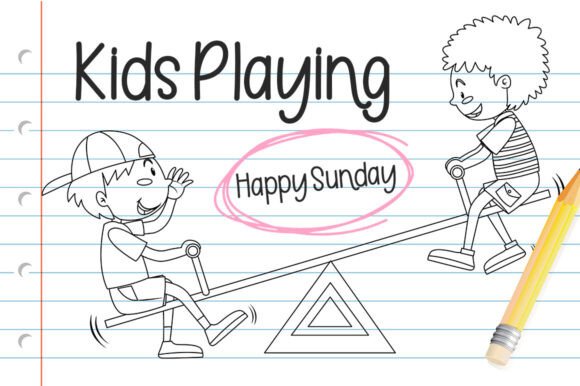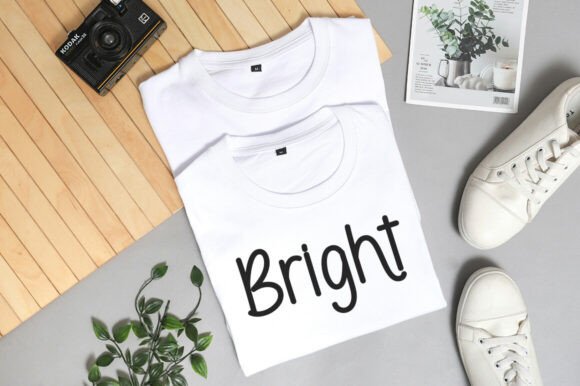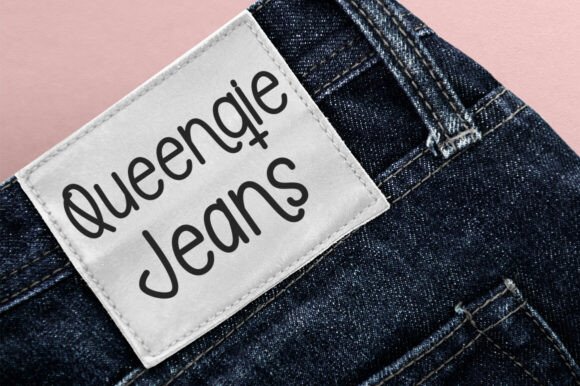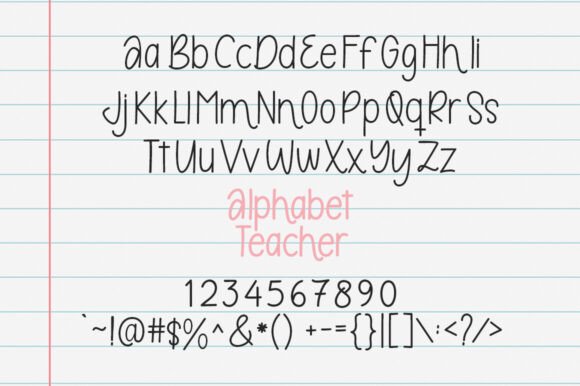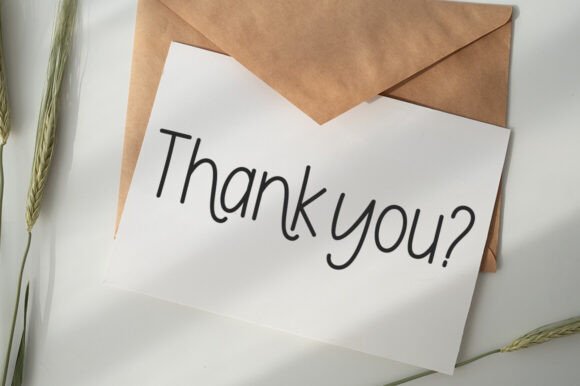
Discover the Charm of Alphabet Teacher Font
What Makes Alphabet Teacher Special?
Alphabet Teacher is an elegantly modern and casually playful font that infuses charm into your creative process. Its regular design showcases a captivating swash that enhances its allure, making it perfectly suited for diverse applications.
- ✨ Elegant and Playful: Alphabet Teacher strikes the perfect balance between modern elegance and casual playfulness, making it versatile for various projects.
- ✅ Swash Details: The font’s captivating swash adds a touch of sophistication and uniqueness to any design.
- 💫 Highly Versatile: From logo designs and wedding invitations to product packaging and signage, Alphabet Teacher breathes life into your projects.
While Alphabet Teacher is an excellent font, there are a few minor considerations:
- ⚠️ Limited Use in Body Text: Due to its elegant and swash details, Alphabet Teacher might not be the best choice for lengthy body text. It’s ideal for headlines, titles, and short paragraphs.
The Backstory of Alphabet Teacher
Imagine a designer who wanted to create a font that captures the essence of modern elegance with a touch of playfulness. Inspired by the beauty of handwriting and the need for versatile typography, Alphabet Teacher was born. This font is designed to bring charm and personality to your projects, making it a valuable addition to any designer’s toolkit.
Q: What makes Alphabet Teacher unique?
A: Alphabet Teacher stands out due to its elegant and playful design, coupled with its captivating swash details that add a touch of sophistication.
Q: Is Alphabet Teacher suitable for body text?
A: While Alphabet Teacher is stunning for titles and short paragraphs, it might not be ideal for lengthy body text due to its elegant and swash details.
Alphabet Teacher is more than just a font; it’s a design companion that can elevate your creative projects with its unique charm and versatility. Whether you’re designing a logo, crafting a wedding invitation, or creating a stunning poster, Alphabet Teacher is sure to leave a lasting impression.